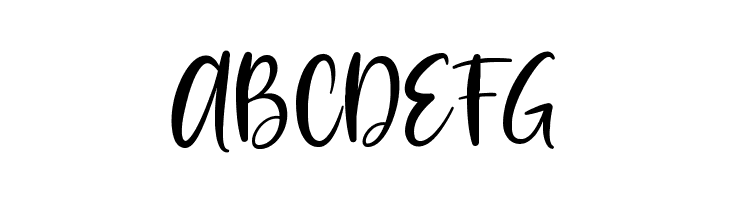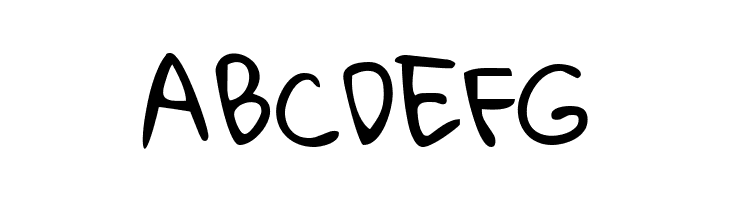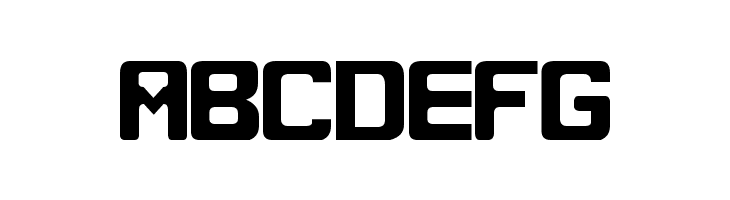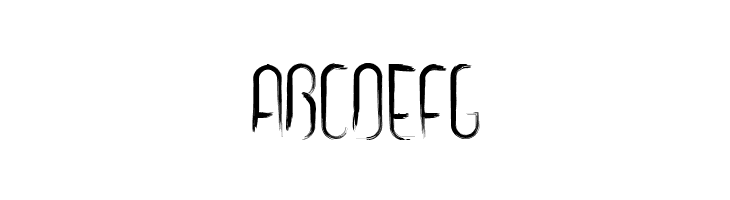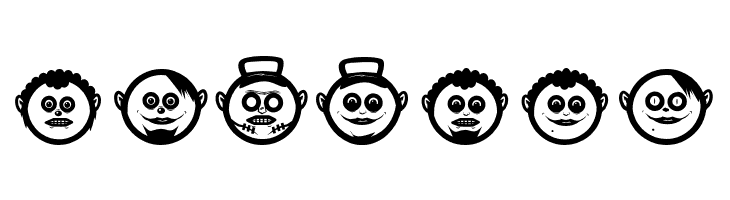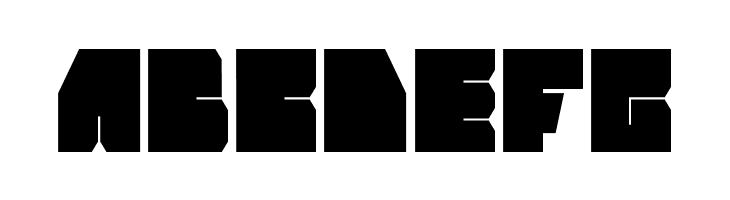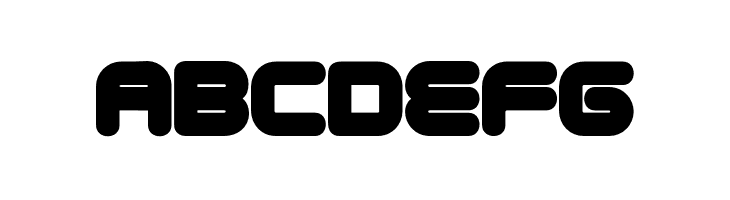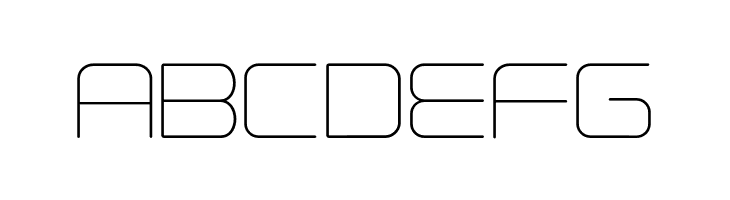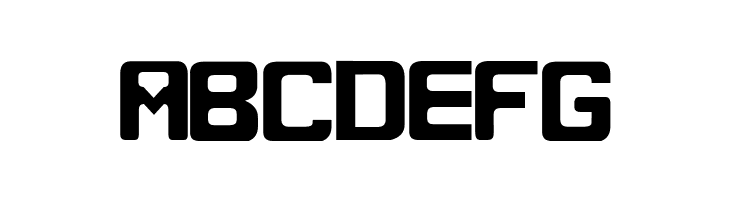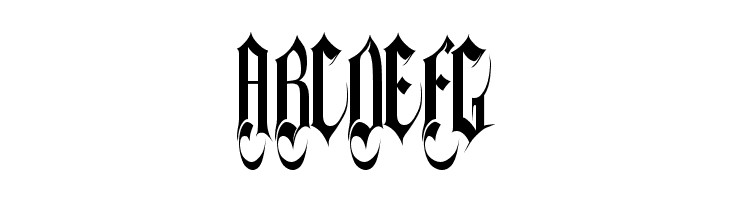
A bold, geometric font with rounded edges and a modern, futuristic style.
A playful collection of face icons with various expressions and styles.
A playful, casual handwritten font with a fun and spontaneous style.
A modern, clean sans-serif font with high readability and uniform structure.
An ornate Blackletter font with bold, angular strokes and decorative flourishes.
A traditional Blackletter font with ornate and angular strokes, ideal for historic and formal designs.
A traditional blackletter font with ornate, medieval-style letterforms.
A detailed Blackletter font with ornate, medieval-inspired design.
An ornate Blackletter font with intricate details and an italic style.
A traditional blackletter font with ornate, angular letterforms and a medieval aesthetic.
A lively, expressive handwritten font with dynamic strokes.
A bold, decorative font with a three-dimensional layered effect.
A bold, three-dimensional font with geometric precision and strong outlines.
A classic serif typeface with high contrast and elegant serifs.
A bold, rounded font with a modern and playful style.
A modern, geometric font with thin, continuous lines and a sleek design.
A classic serif font with elegant strokes and balanced proportions.
A classic serif typeface with elegant proportions and moderate contrast.
A decorative and abstract font with intricate geometric shapes and symmetrical patterns.
The image contains decorative illustrations instead of a standard font.
A graffiti-inspired font with elongated, angular characters and an urban aesthetic.
A bold, graffiti-inspired font with angular, dynamic characters.
A runic-inspired font with bold, angular, and geometric shapes.
A pixelated, blocky font inspired by retro digital displays.